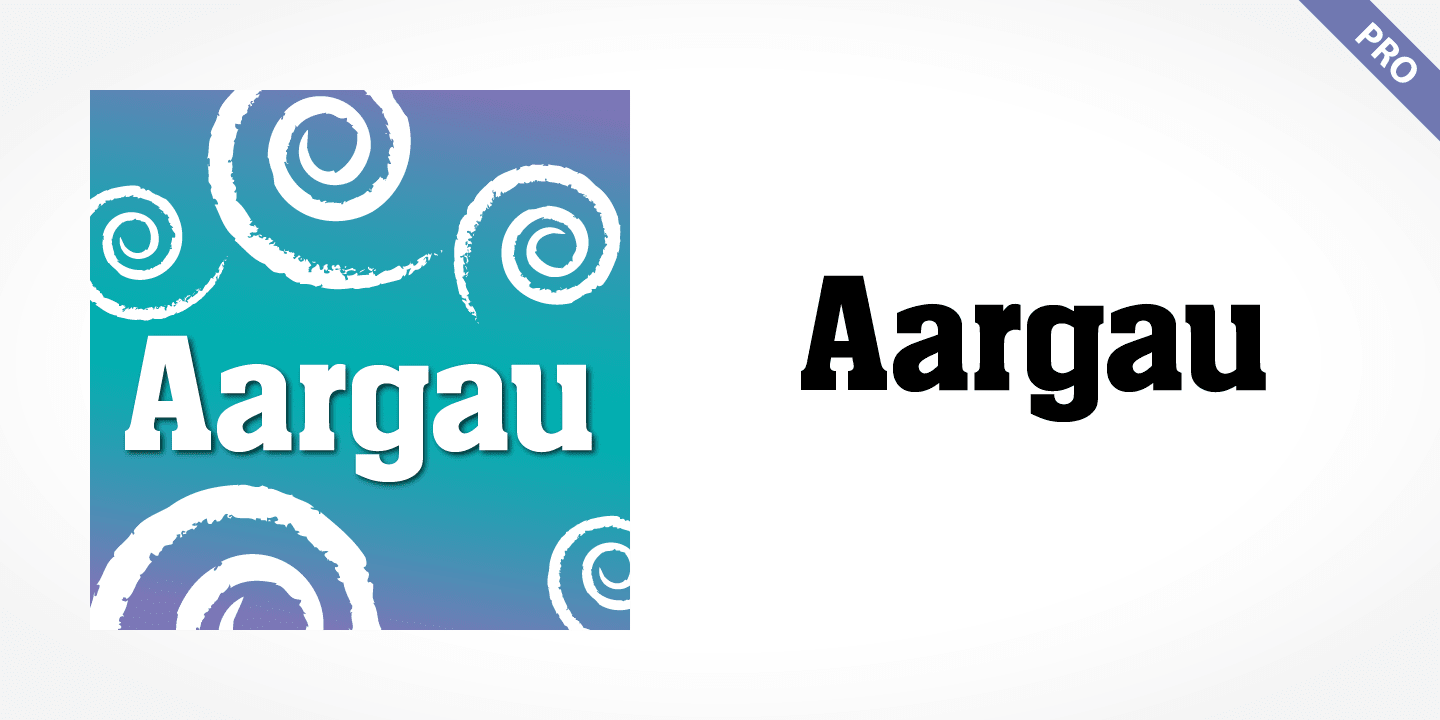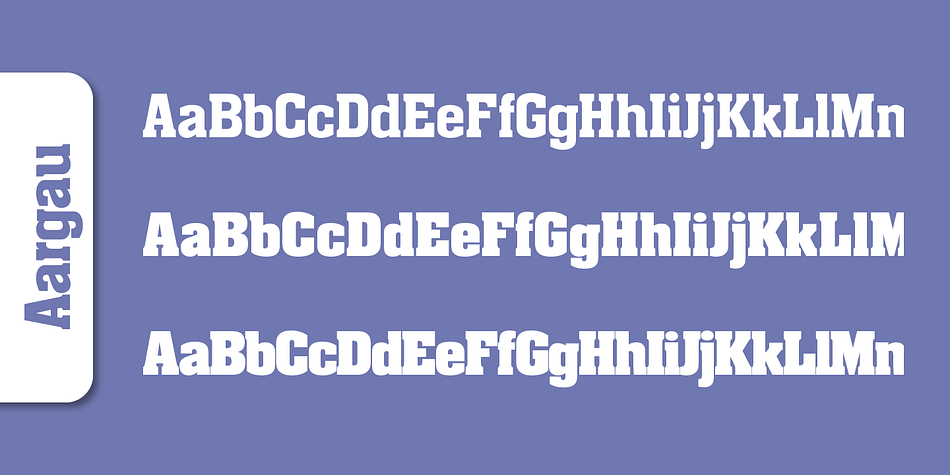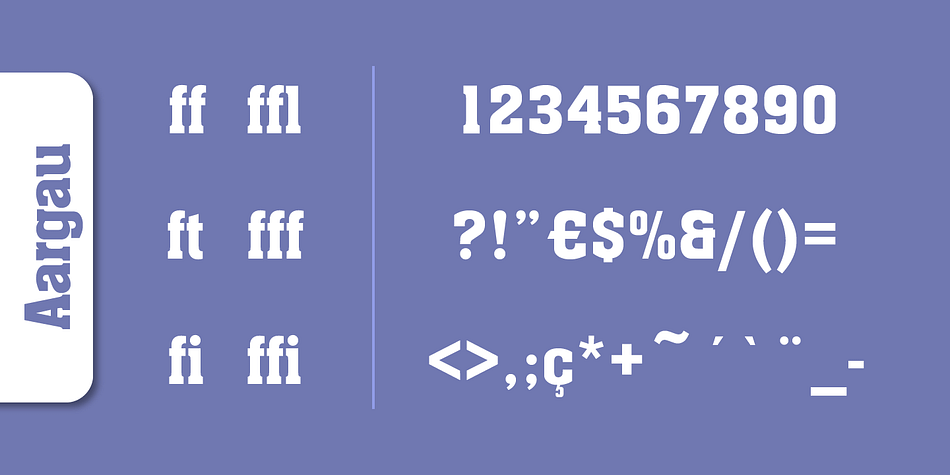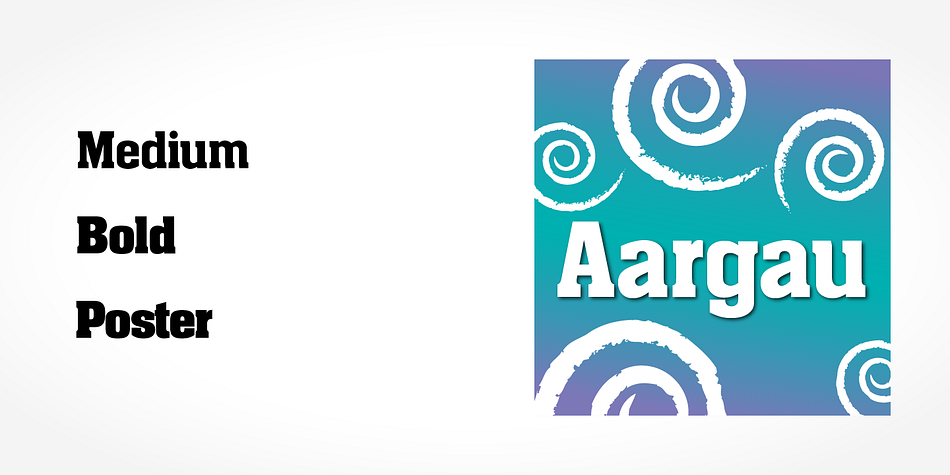
Aargau Pro
Aargau Pro is a slab serif font family. This typeface has three styles and was published by SoftMaker.
Aargau Pro is a thick slab serif typeface created SoftMaker. This strong typeface features sharp outlines, stubby serifs, and heavy strokes for use in headlines, posters, signage, apparel, and other display uses.